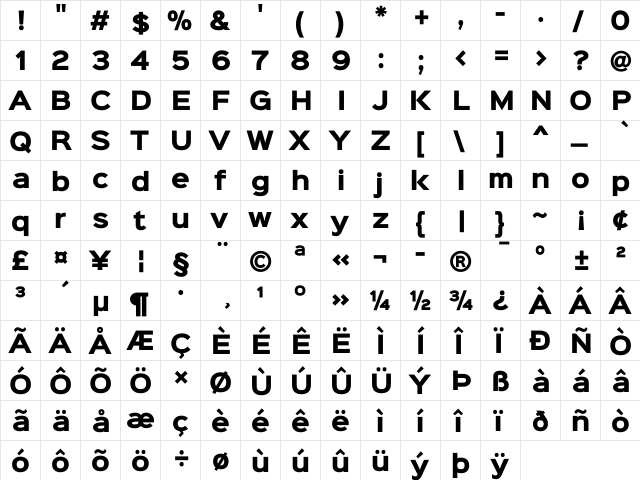
Sinkin Sans 800 Black 800 Black Font Preview
Sinkin Sans 800 Black 800 Black
| Designer | Keith Bates |
Design Context for Sinkin Sans 800 Black Typeface
Sinkin Sans 800 Black is a composed and adaptable typeface that performs quietly and consistently across a wide range of design contexts.